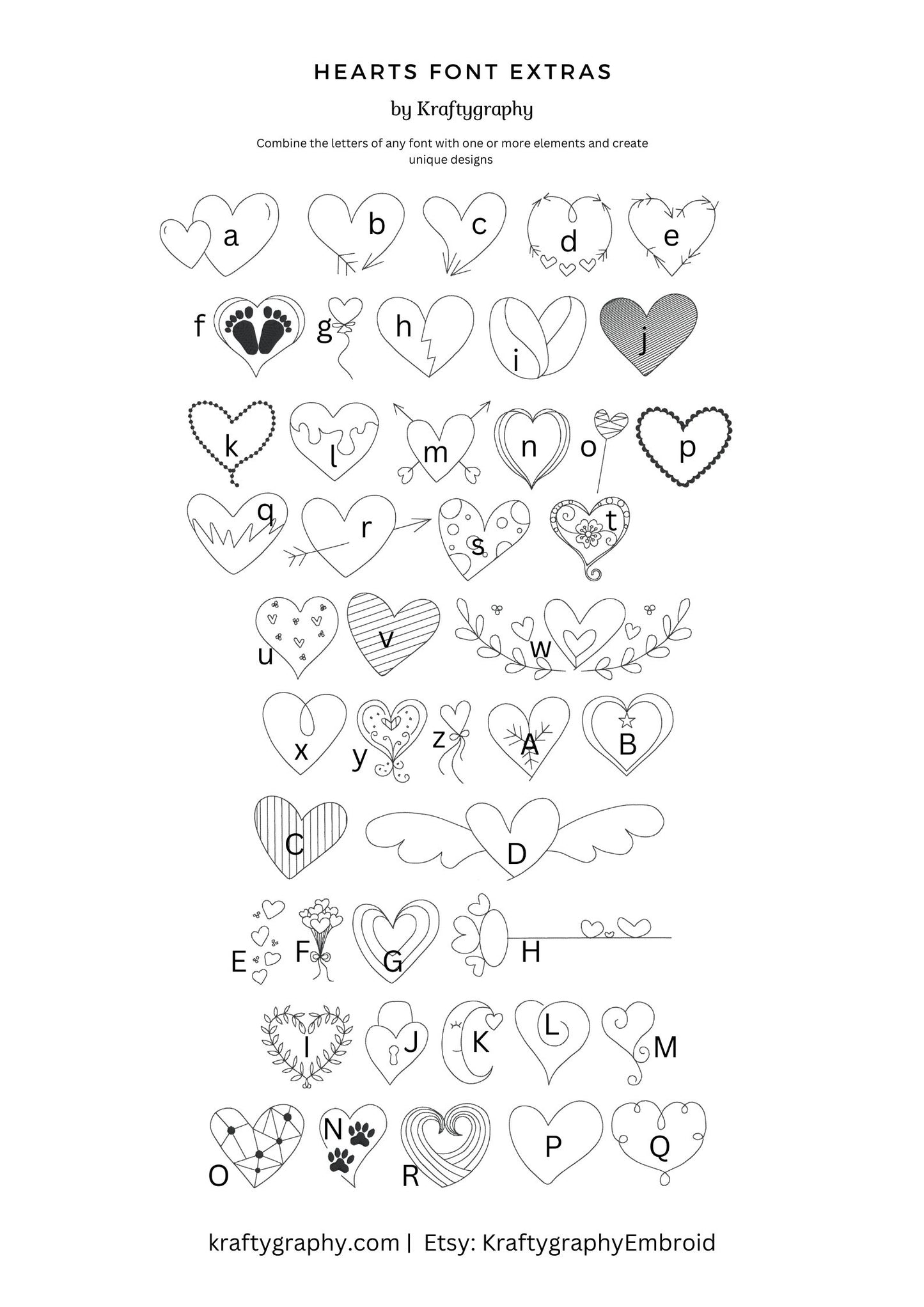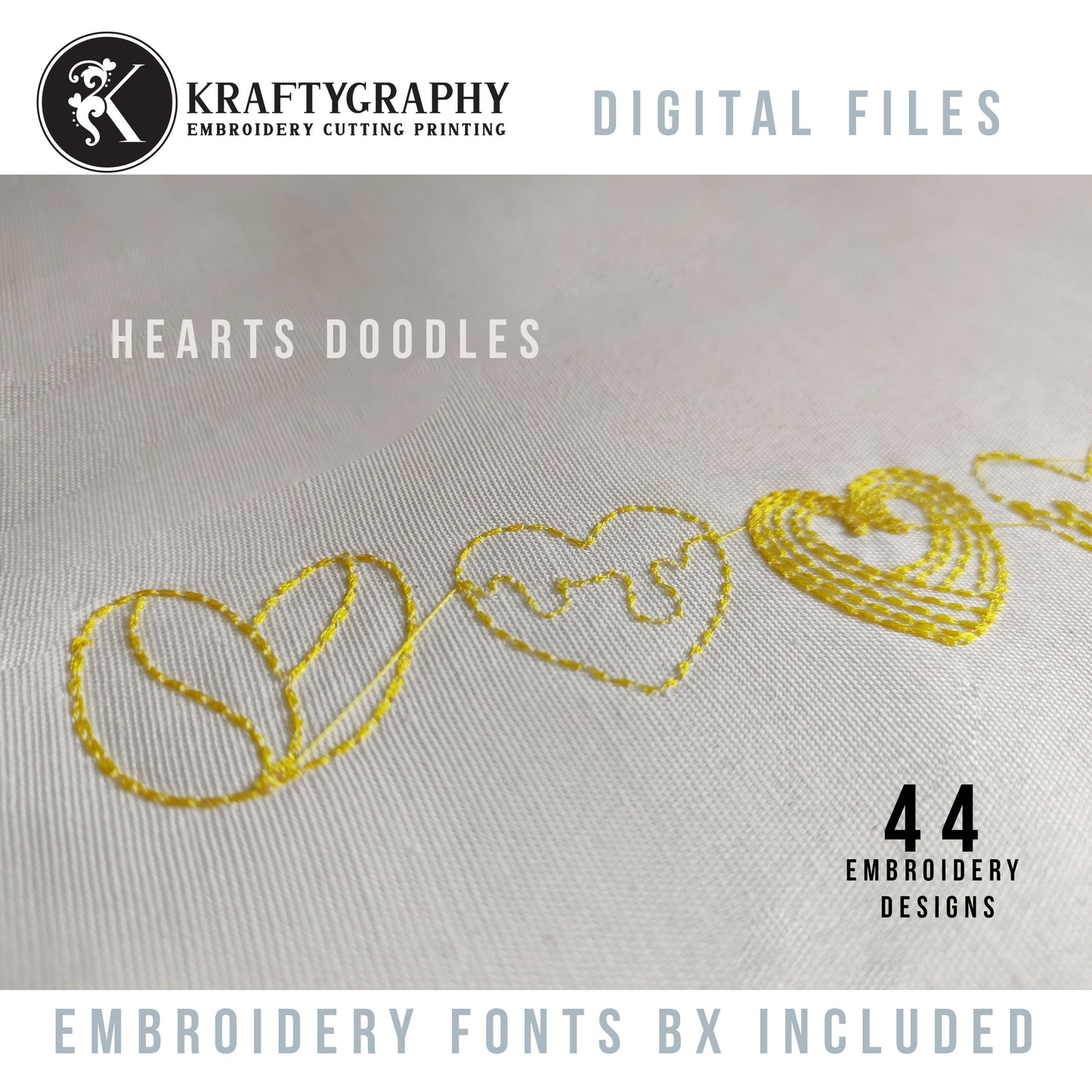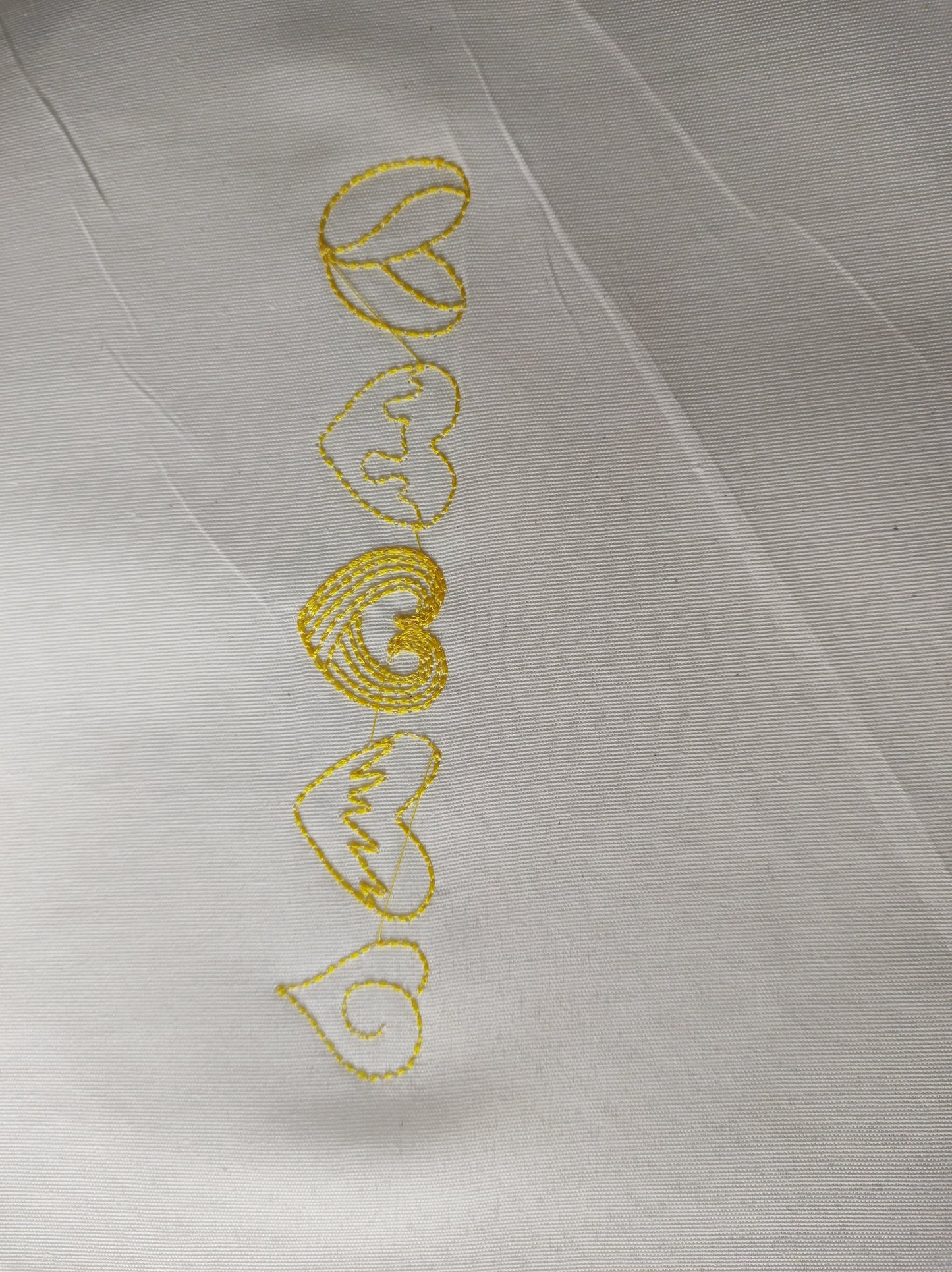
44 Heart Doodles Machine Embroidery Designs, Valentine Embroidery Patterns, Bx Embroidery Font, Love Embroidery Files
Looking for Heart embroidery designs for your machine embroidery projects? Check out this cute decoration elements embroidery patterns. Great to use for Valentine's Day monogram, ornaments, pillowcase, sweaters, shirts, pajamas.